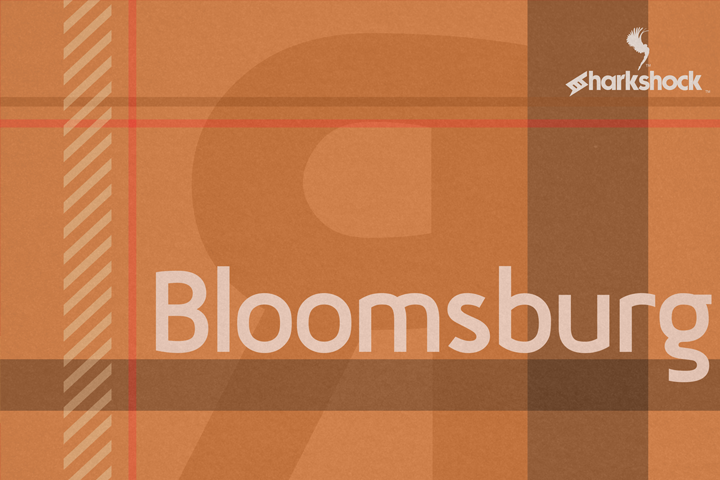
Bloomsburg Font
Bloomsburg is a sharp, modern, everyday font with a multitude of uses. This family is characterized by its high legibility, delicate curves, and vertical cuts to most lowercase terminals. Use Bloomsburg for eye catching headlines or try the Bold version for a company logo.